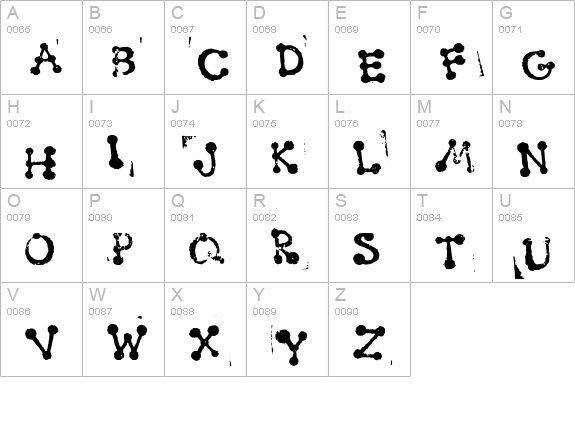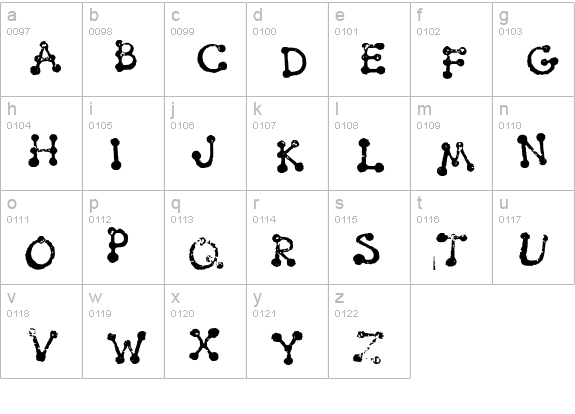
Smudgy Dot Stamps Font Details
Introducing the captivating and whimsical Smudgy Dot Stamps font, a delightful display typeface perfect for adding a touch of playfulness to your projects. This unique font features charming smudged dots that give it a fun and artistic flair, making it ideal for a variety of creative designs. Smudgy Dot Stamps font is the perfect choice for creating eye-catching posters, greeting cards, branding materials, and more. Its playful and energetic vibe will instantly grab attention and leave a lasting impression on your audience. Best of all, Smudgy Dot Stamps font is available for free download at FontsMarket.com. This means you can easily access this charming font and start using it in your projects right away, without any cost. Don't miss out on the opportunity to add a touch of whimsy to your designs with the delightful Smudgy Dot Stamps font!